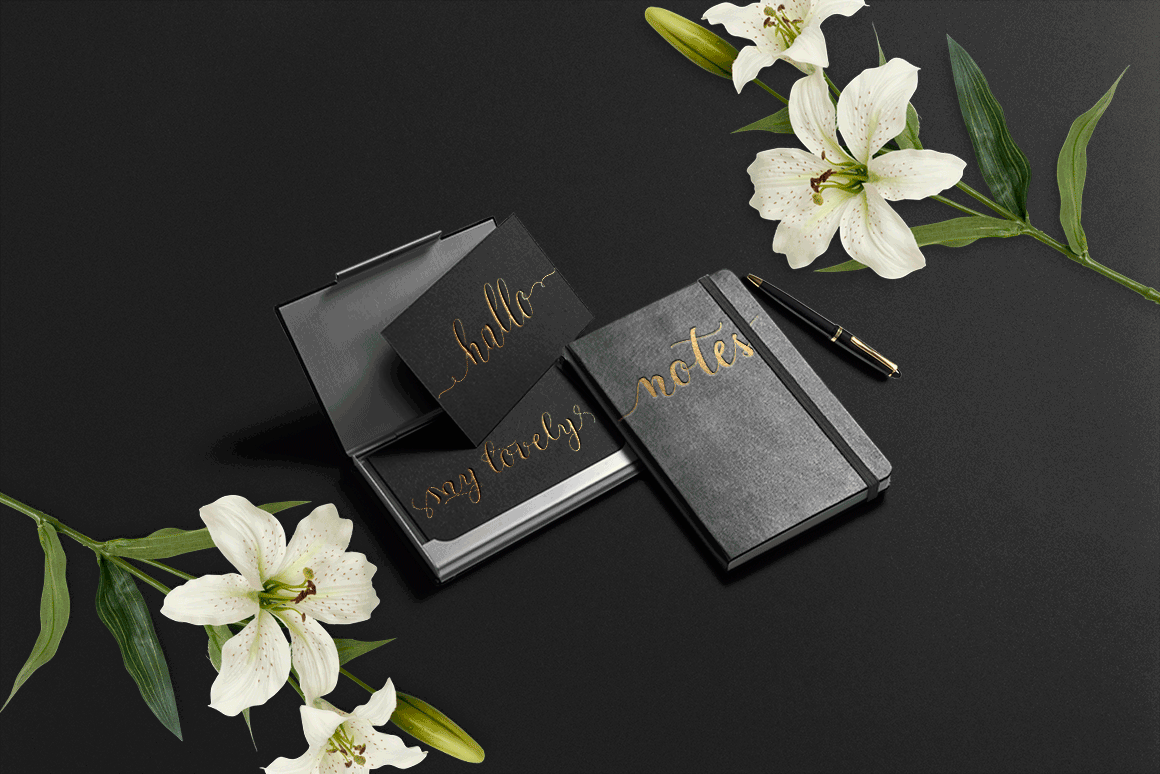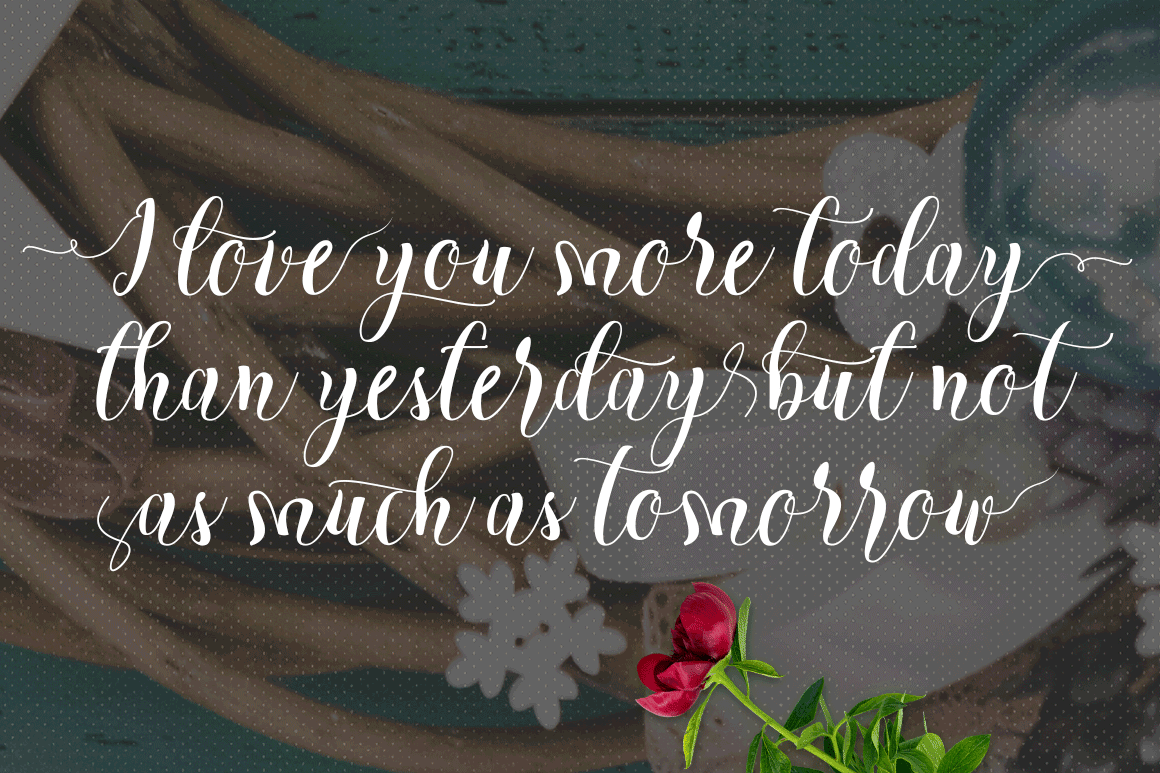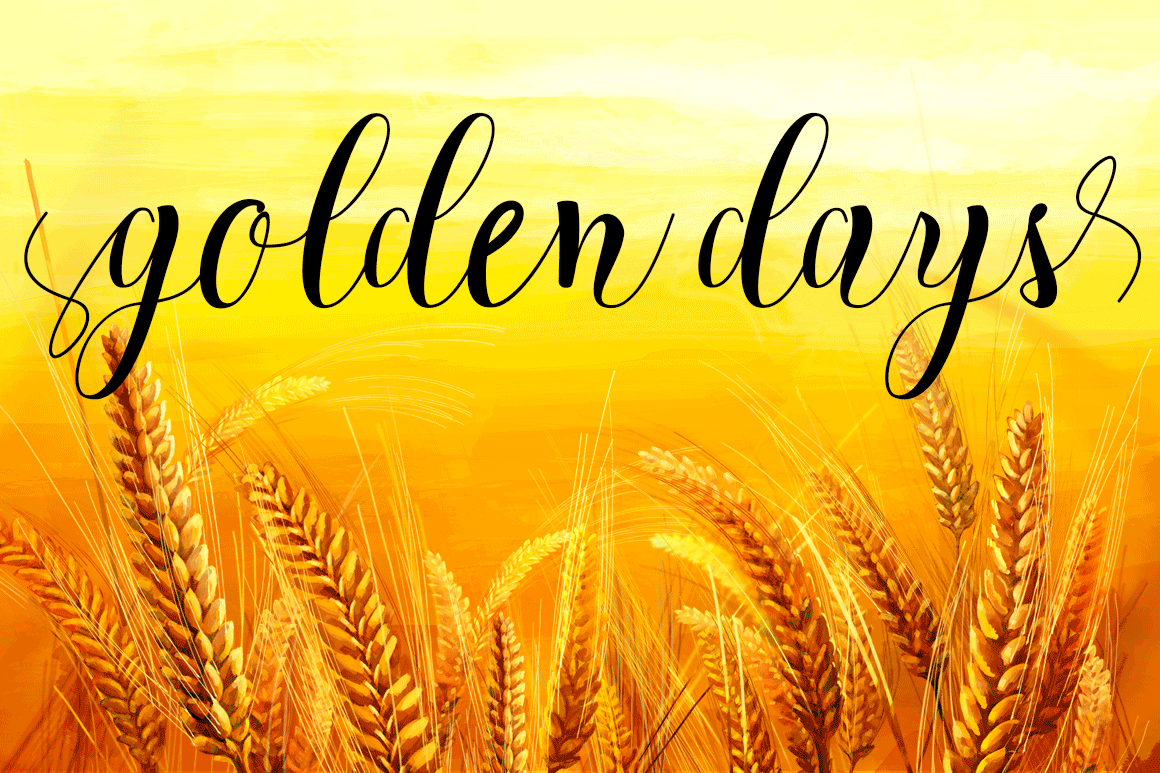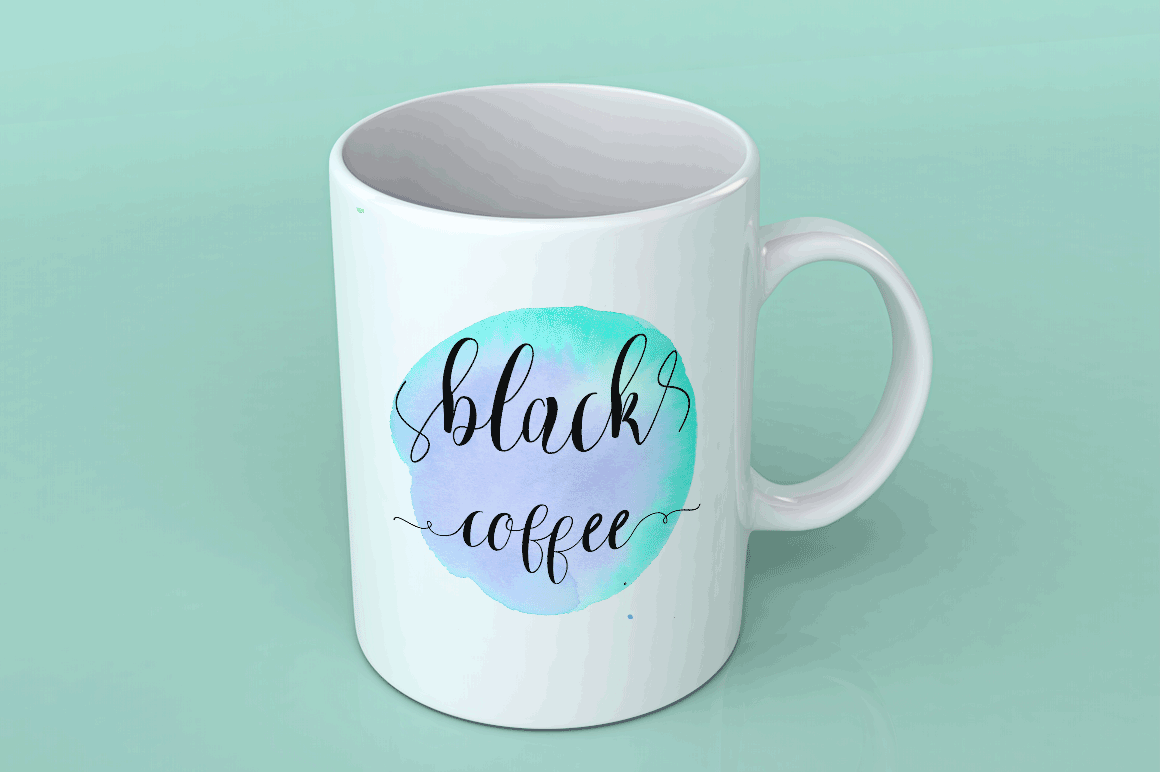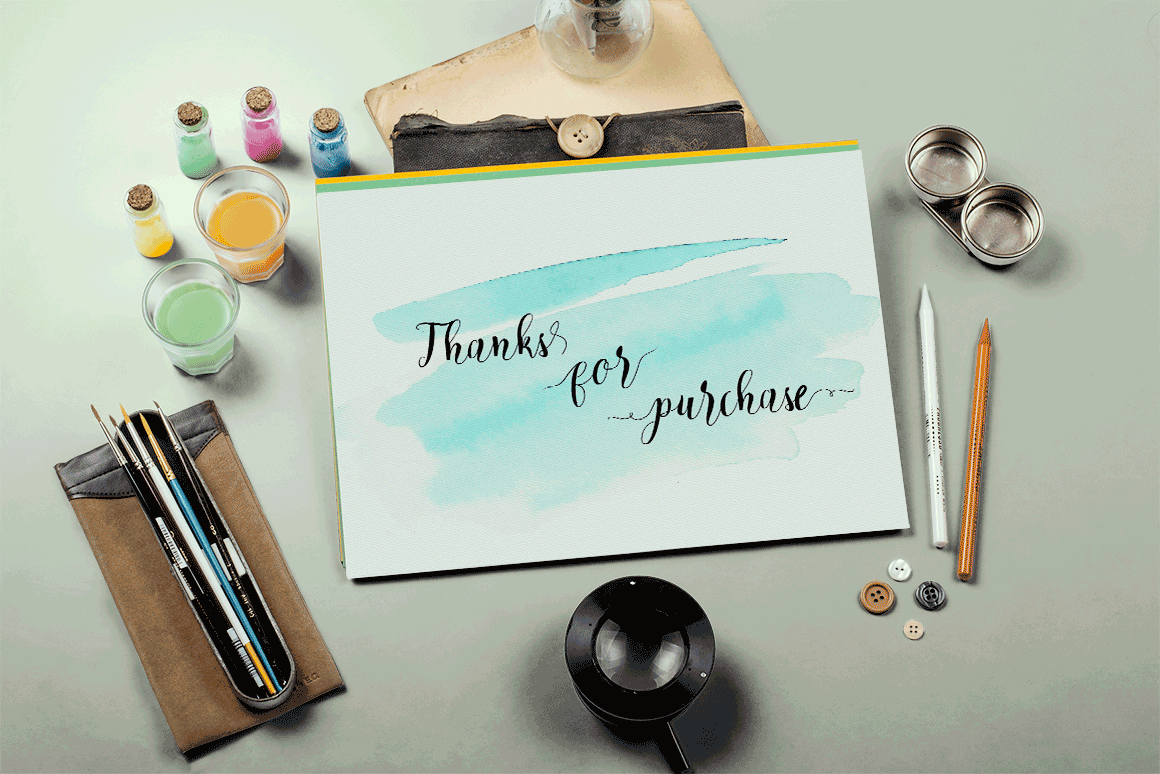
Introducing Cratti Font: A Handwritten Masterpiece by Meutuwah
Are you tired of using the same old fonts in your designs? Look no further! Cratti Font, created by the talented Meutuwah, is a game-changer. This beautiful handwritten font boasts an impressive 440 unique glyphs, making it perfect for designers and crafters seeking to add a personal touch to their work.
What is Cratti Font?
Cratti Font is a carefully crafted handwritten font designed to bring a sense of warmth and personality to your designs. With its unique and elegant style, it’s ideal for a wide range of projects, from branding and advertising to crafting and DIY tutorials. The font’s creator, Meutuwah, has poured their heart and soul into designing a font that is both visually appealing and highly versatile.
Key Features of Cratti Font
- 440 Unique Glyphs: Cratti Font comes with an impressive 440 unique glyphs, including letters, numbers, and special characters. This extensive range of glyphs allows you to create complex and visually appealing designs with ease.
- Handwritten Style: The font’s handwritten style gives it a personal and organic feel, making it perfect for designers and crafters who want to add a touch of warmth to their work.
- Highly Versatile: Cratti Font is designed to be highly versatile, making it suitable for a wide range of projects, from digital designs to print materials.
Who is Cratti Font for?
Cratti Font is perfect for:
- Graphic Designers: If you’re a graphic designer looking for a unique and elegant font to add to your collection, Cratti Font is an excellent choice.
- Crafters: If you’re a crafter who loves to create handmade products, Cratti Font is a great way to add a personal touch to your designs.
- DIY Enthusiasts: If you enjoy DIY projects and want to create unique and visually appealing designs, Cratti Font is a great resource.
- Create a Brand Identity: Use Cratti Font to create a unique brand identity for your business or personal project.
- Design a Logo: Cratti Font is perfect for designing a logo that stands out from the crowd.
- Make a Craft Tutorial: Use Cratti Font to create a visually appealing craft tutorial that showcases your skills.
Tips and Tricks for Getting the Most Out of Cratti Font
Here are some tips and tricks for getting the most out of Cratti Font:
- Experiment with Different Sizes: Cratti Font looks great in a variety of sizes, so don’t be afraid to experiment and find the perfect size for your design.
- Pair it with Other Fonts: Cratti Font pairs well with other fonts, so try combining it with a sans-serif font for a unique look.
- Use it for Headings and Titles: Cratti Font is perfect for headings and titles, so use it to add a touch of elegance to your designs.
In conclusion, Cratti Font by Meutuwah is a beautiful handwritten font that is perfect for designers and crafters seeking to add a personal touch to their work. With its 440 unique glyphs and highly versatile design, it’s an excellent resource for a wide range of projects. Whether you’re a graphic designer, crafter, or DIY enthusiast, Cratti Font is sure to become a favorite in your collection.